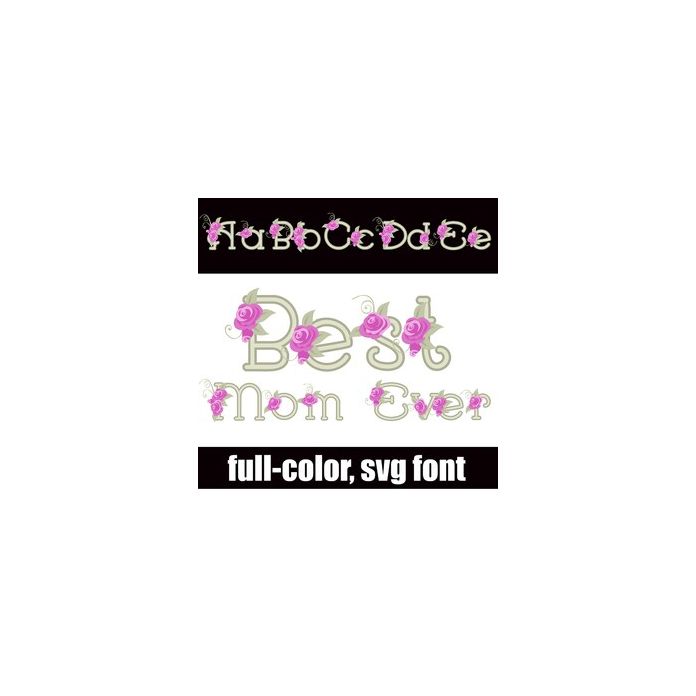
This pretty serif font features florals throughout. There is an alt case w/ additional colors you can access through your system or Silhouette's glyph map.